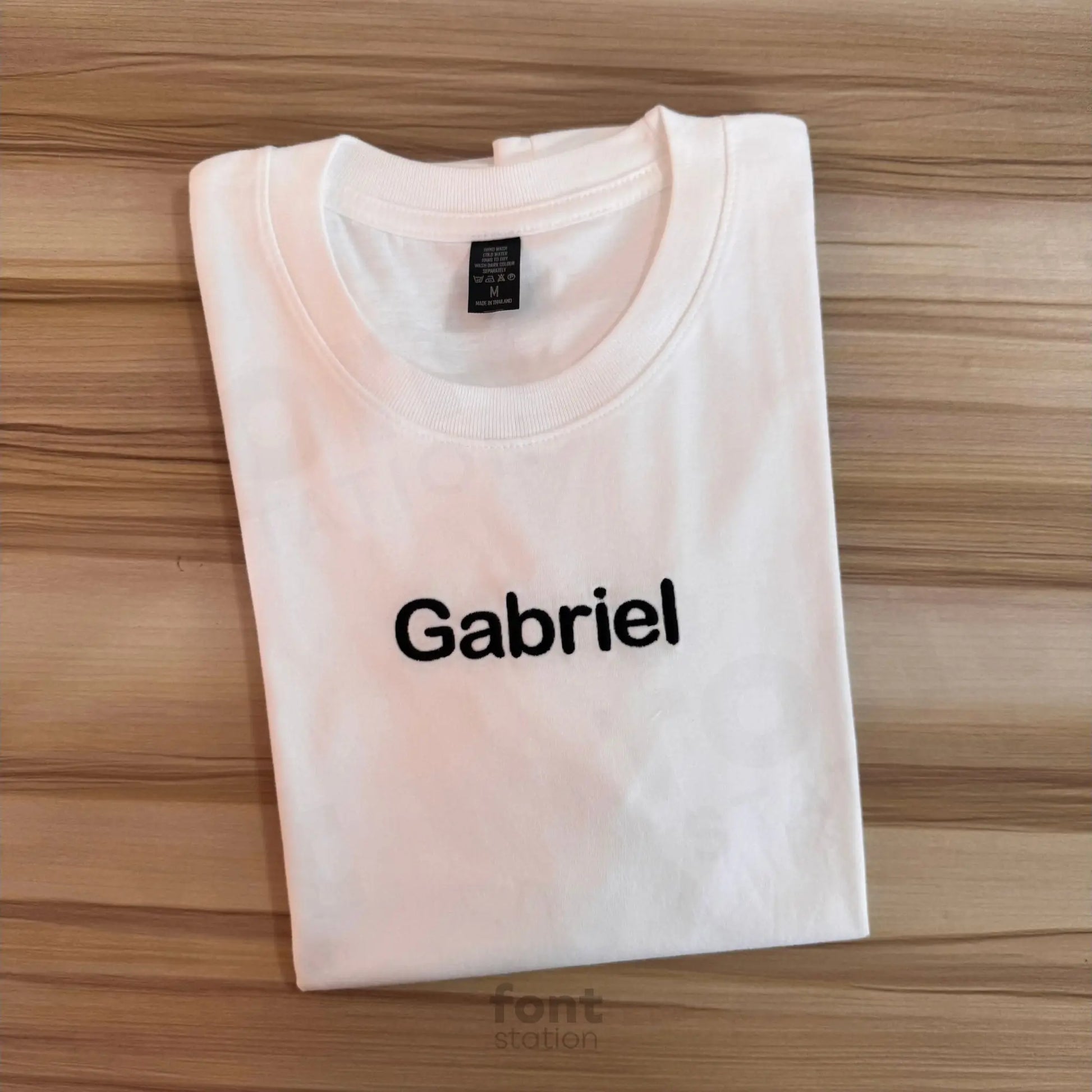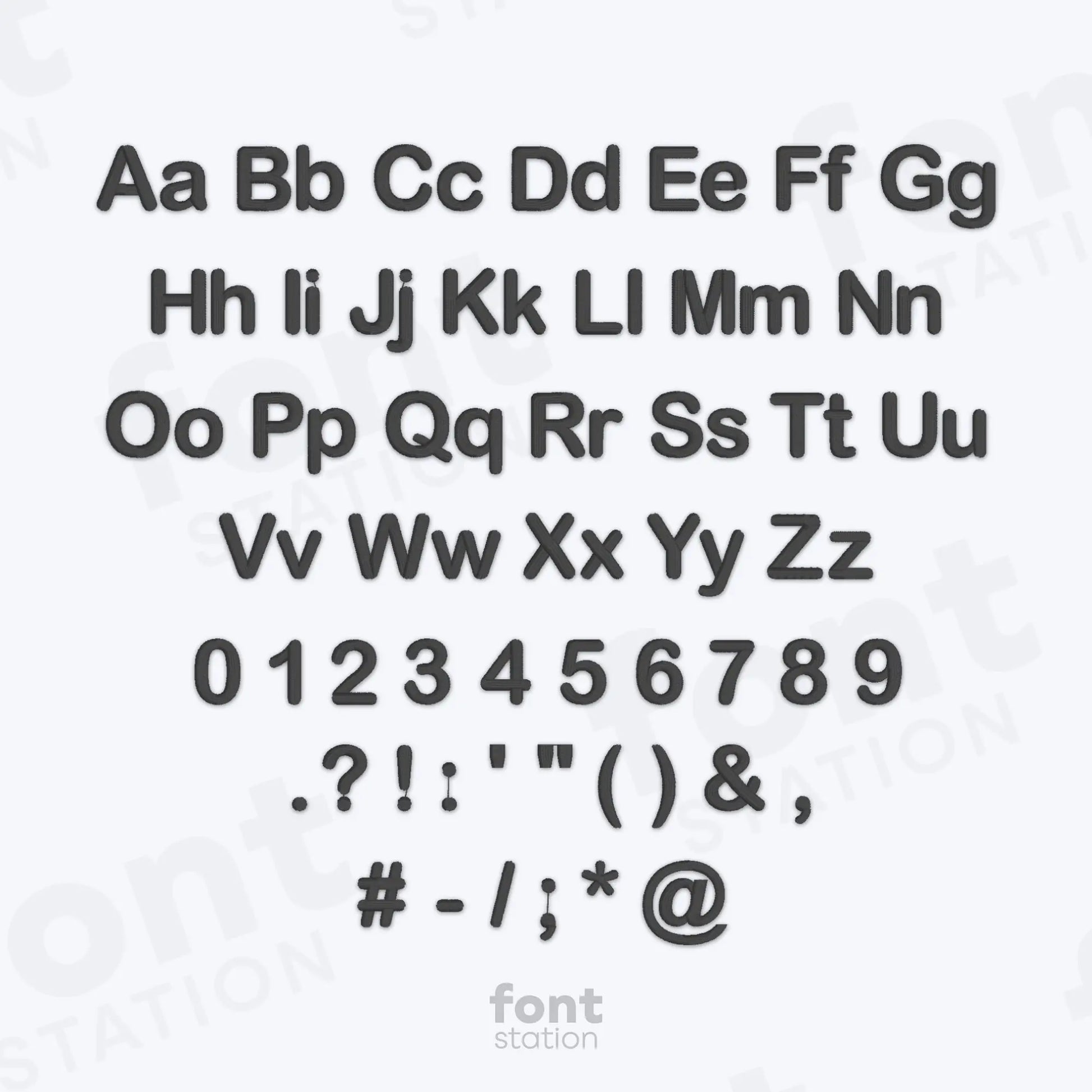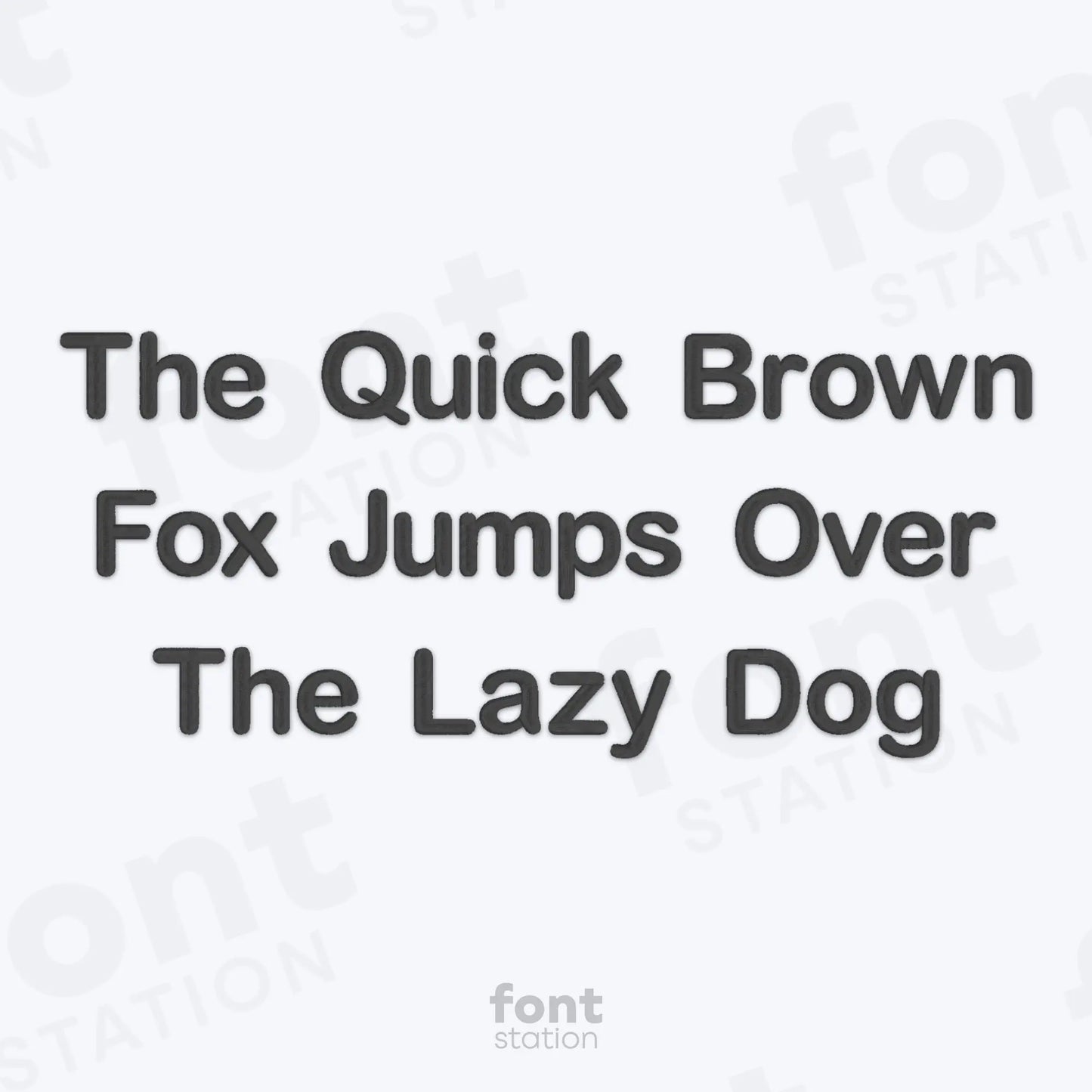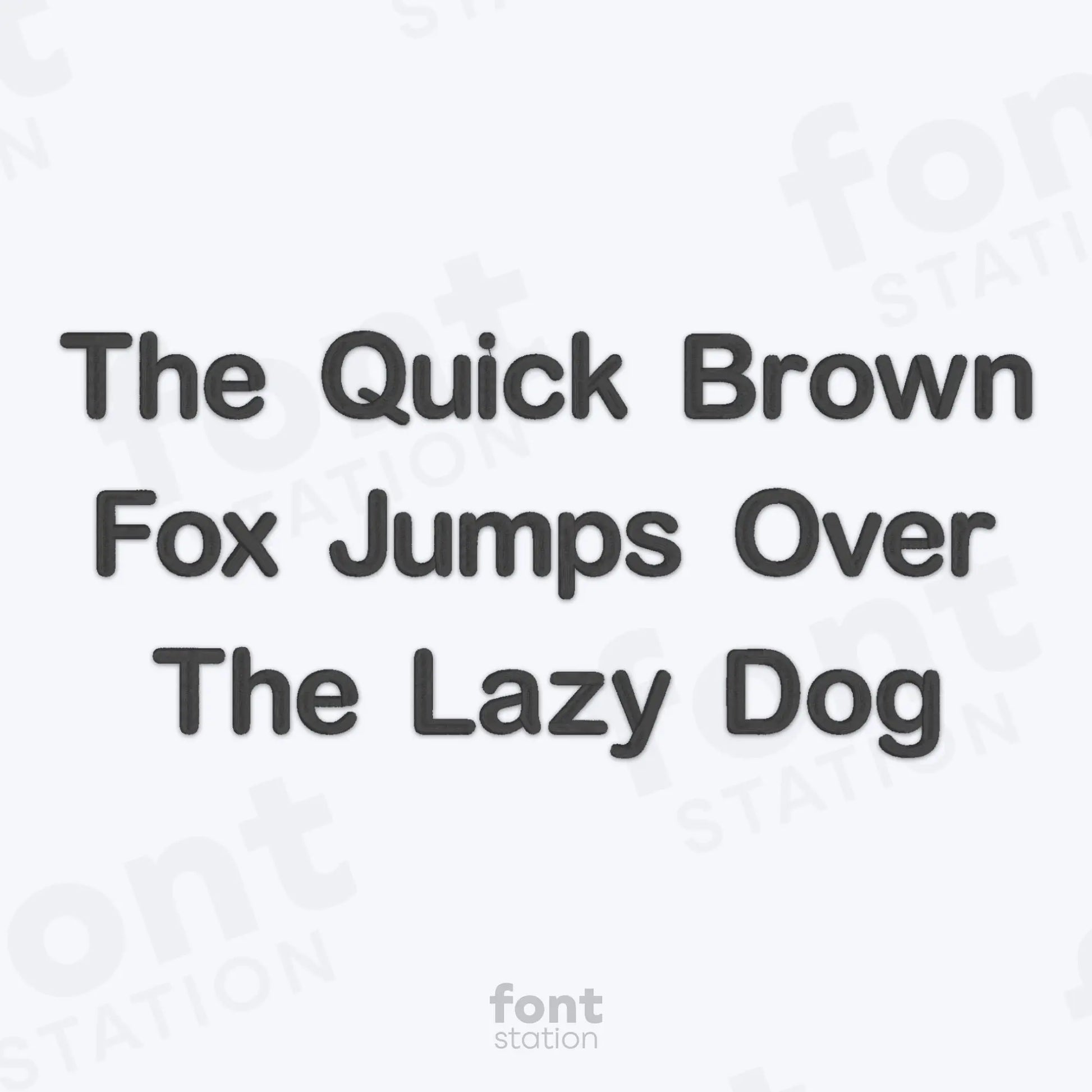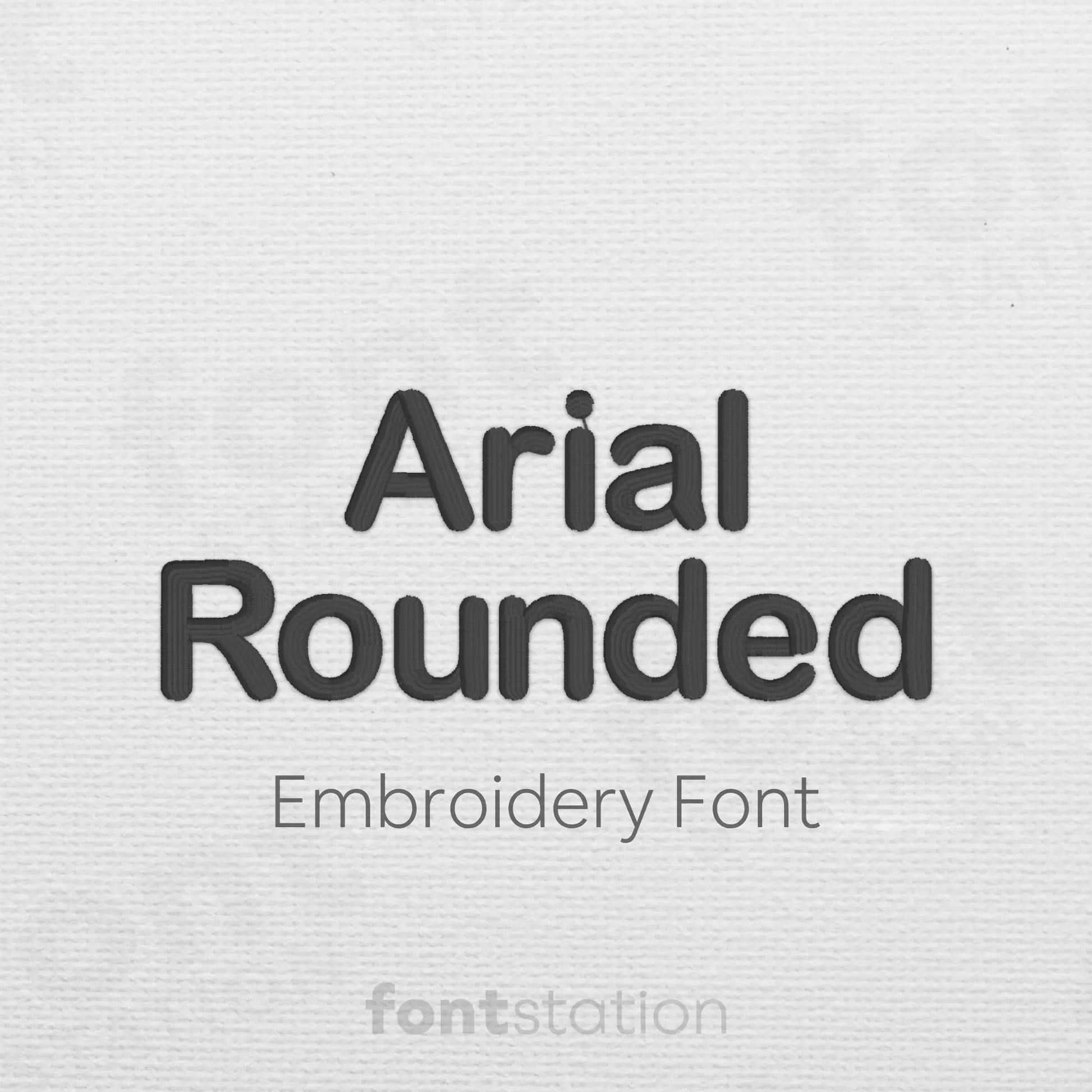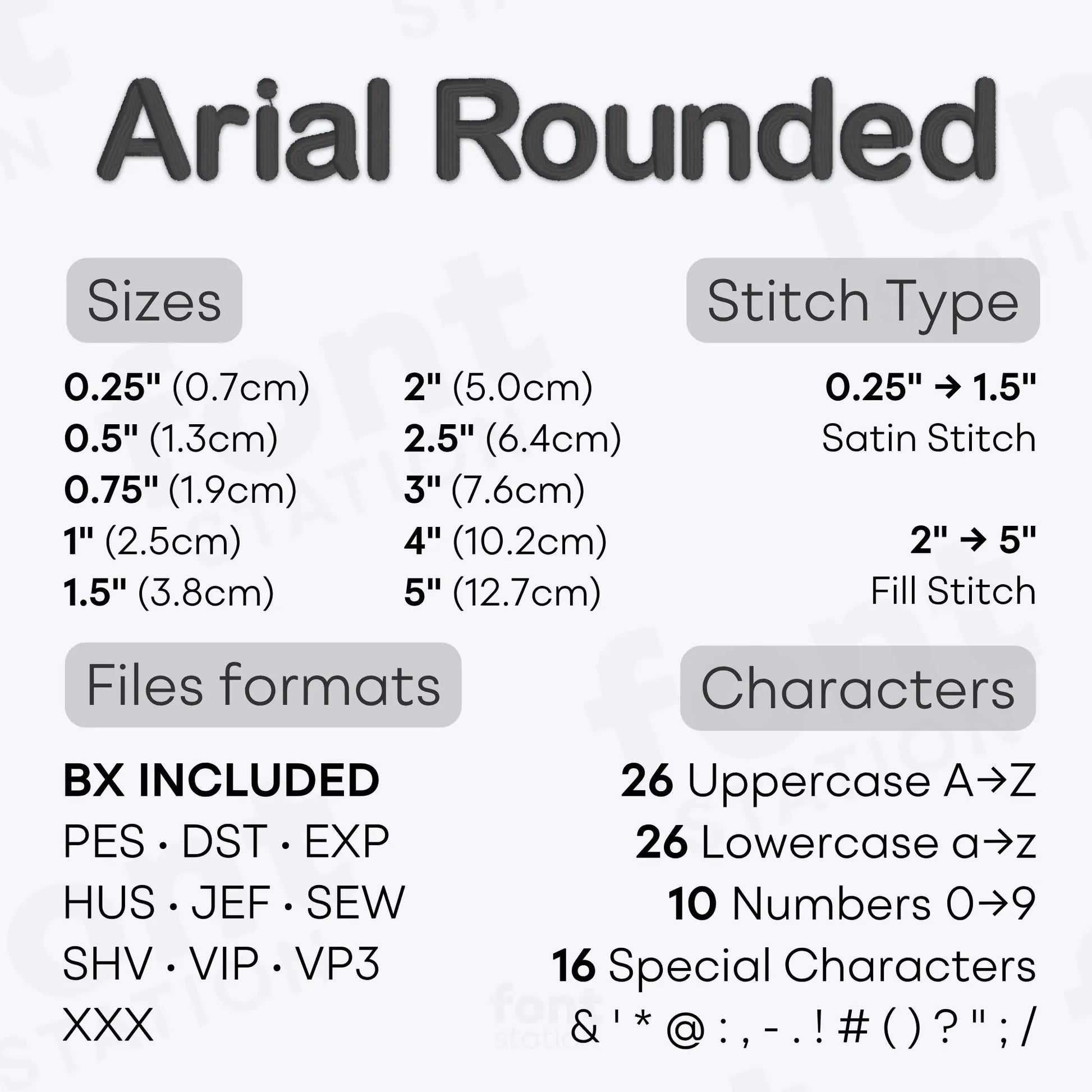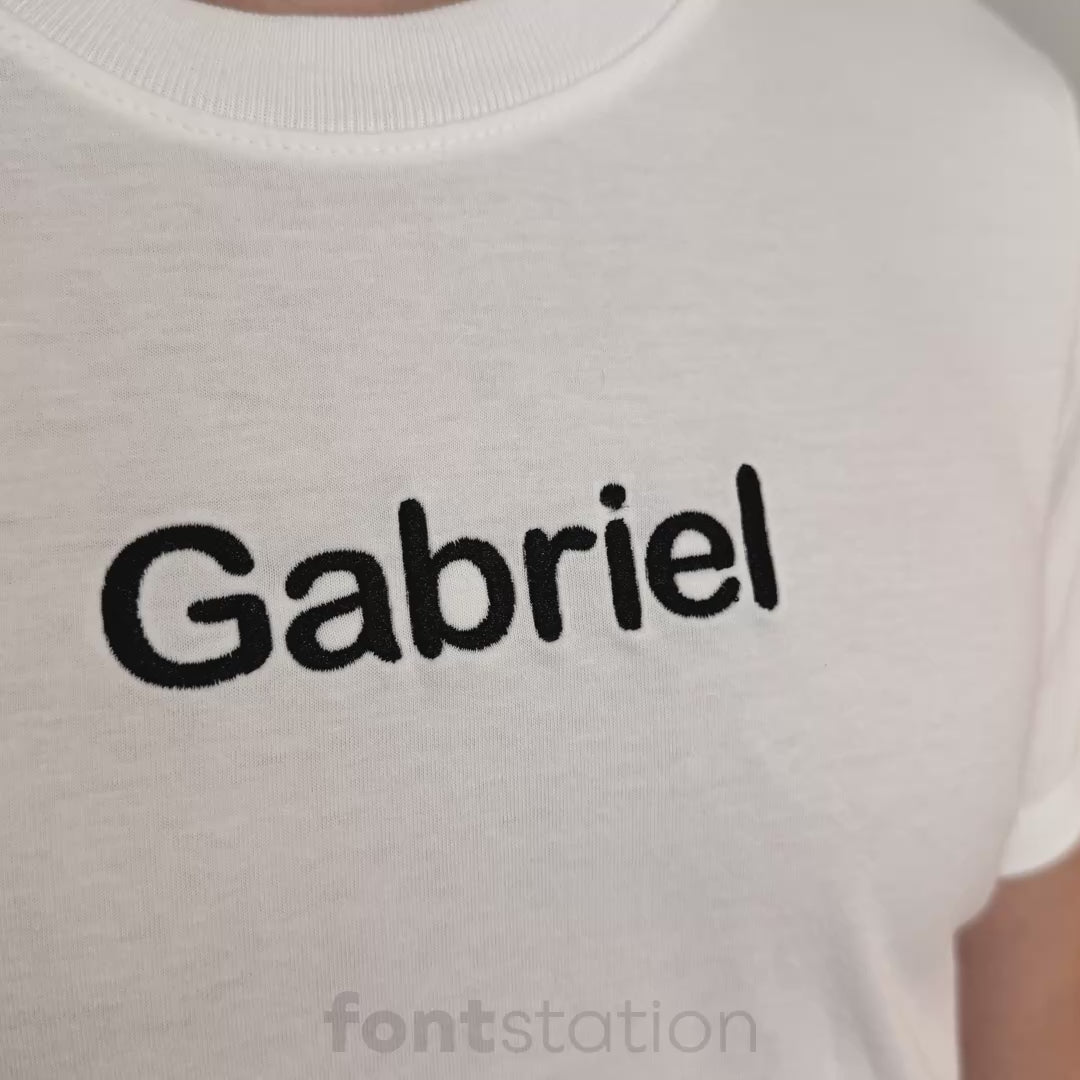
Arial Rounded Embroidery Font
Introducing our Arial Rounded embroidery font, a clean block alphabet designed for crisp letters on every project. Ready to stitch with your embroidery machine, this versatile font helps you create bold, professional designs with smooth, high quality results.
About the Arial Rounded Embroidery Font
Arial Rounded Embroidery Font, a Block Embroidery Alphabet for Machine Embroidery
Create clean, modern embroidery projects with our Arial Rounded embroidery font, a professionally digitized block embroidery alphabet designed for crisp, smooth stitching. Featuring rounded letters and available in small and large sizes, this versatile embroidery font is perfect for personalizing clothing, bags, towels, baby gifts, home décor, and countless custom creations.
Every letter has been carefully digitized to deliver beautiful stitch quality with minimal trims, making it suitable for both beginners and experienced embroiderers. Whether you're creating names, monograms, business logos, or decorative text, this machine embroidery alphabet produces clean, readable results on a wide variety of fabrics.
If you're looking for a modern, rounded block embroidery font with excellent readability in both small and large sizes, Arial Rounded is a versatile choice for everyday embroidery projects, personalized gifts, and professional embroidery.